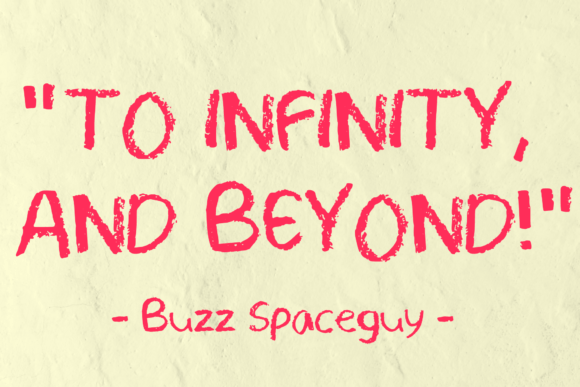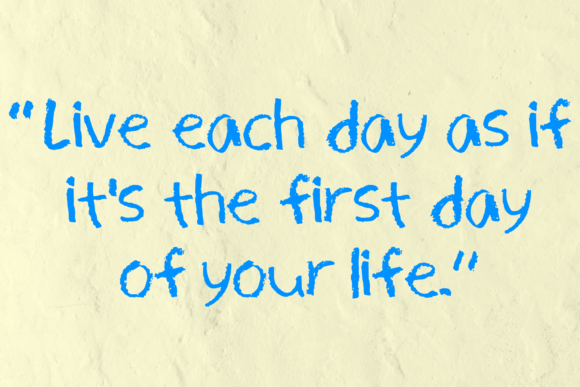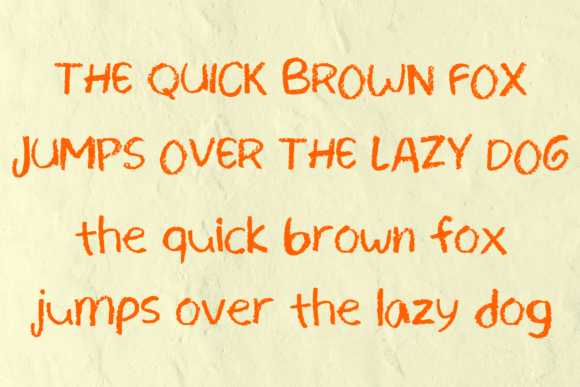
Introduction to Pencil Sketch Font Font
Fonts play a crucial role in design, and the Pencil Sketch Font font is a typeface that brings both character and versatility to any project. Whether you’re working on a branding project, a website, or a print design, the Pencil Sketch Font font offers a unique style that can elevate your work.
Pencil Sketch is a perfect handwritten sans serif font and very versatile for everything you need.
You can use it for anything ranging from t-shirts, kids’ magazines, social media posts, greeting cards, stickers, posters, kid’s book design or anything that needs a casual touch Try it to create cool designs and feel the good vibes with it.
Key Features of Pencil Sketch Font Font
Why Choose Pencil Sketch Font Font?
The Pencil Sketch Font font is more than just a typeface – it’s a design tool that helps you communicate your message with style and clarity. Its unique character set and versatile design make it suitable for a wide range of applications, from elegant invitations to bold headlines.
With its carefully crafted letterforms and balanced proportions, the Pencil Sketch Font font ensures readability and visual appeal across all mediums.
What makes Pencil Sketch Font font special?
The Pencil Sketch Font font stands out with its unique design, exceptional readability, and versatility across various design applications.